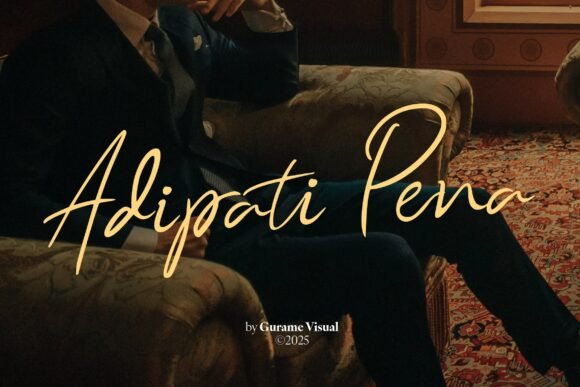
Introducing Adipati Pena: The Elegant Handwritten Script Font You Need
Have you ever been in the middle of a design project, and suddenly, you’re stuck on finding the perfect font? I recall a recent experience where I was working on a wedding invitation design, and my client specifically asked for a font that exuded elegance and sophistication. After hours of searching, I stumbled upon Adipati Pena, and it instantly became my go-to font. In this article, I’ll share my journey with Adipati Pena, its features, and how you can make the most of this beautiful handwritten script font.
A Personal Review: What I Love About Adipati Pena
Adipati Pena has been a game-changer for my designs. Here are some features that I absolutely love:
• ✨ Elegant and breezy strokes that add a personal touch to any design
• ✅ Organic curves that make the font feel approachable and chic
• 🌎 Multilingual support, making it perfect for global communication
• 🔍 Ligatures, stylistic alternates, and a range of glyphs to experiment with
While Adipati Pena is an amazing font, there are a few minor limitations to be aware of:
• 🤔 Some users might find the font a bit too delicate for certain design projects
• ⚠️ Limited availability of certain special characters, but this can be addressed with OpenType features
Adipati Pena was crafted with the intention of creating a font that embodies elegance and sophistication. Inspired by traditional handwritten scripts, the designer aimed to create a font that feels both personal and refined. With its organic curves and breezy strokes, Adipati Pena is perfect for designs that require a touch of elegance.